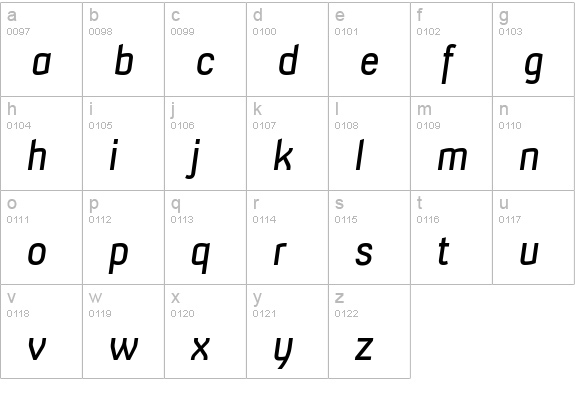
Milibus Rg Italic Font Details
Milibus Rg Italic is a distinctive, italic variant in the Milibus typeface family \xE2\x80\x94 well suited to design and typography projects.
Milibus Rg Italic is a modern and elegant font that exudes sophistication and style. Its sleek and streamlined design makes it perfect for a wide range of projects, from branding to editorial design. The italic style adds a touch of flair and dynamism, making your text stand out with a subtle emphasis. What makes Milibus Rg Italic even more appealing is that it is available for free download at FontsMarket.com. This means you can easily access this high-quality font without any cost, making it a valuable addition to your font collection. Whether you're working on a professional project or a personal creative endeavor, Milibus Rg Italic will elevate your design with its versatility and timeless appeal. Download it today and start using this exceptional font to enhance your work.